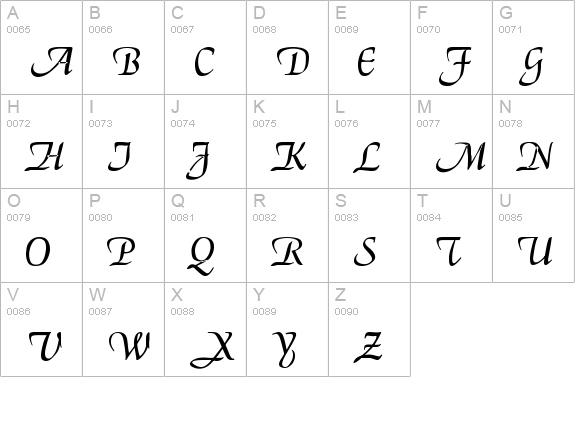
ElGarrett Font Details
Introducing ElGarrett font, a beautifully crafted typeface that exudes sophistication and elegance. The sleek and modern design of ElGarrett makes it perfect for a wide range of projects, from branding to editorial design. With its clean lines and unique character shapes, this font is sure to make a statement and captivate your audience. What makes ElGarrett even more appealing is that it is completely free to download at FontsMarket.com. Yes, you read that right - you can enhance your designs with this stunning font without having to spend a dime. So why wait? Download ElGarrett today and elevate your projects with its timeless charm and versatility.